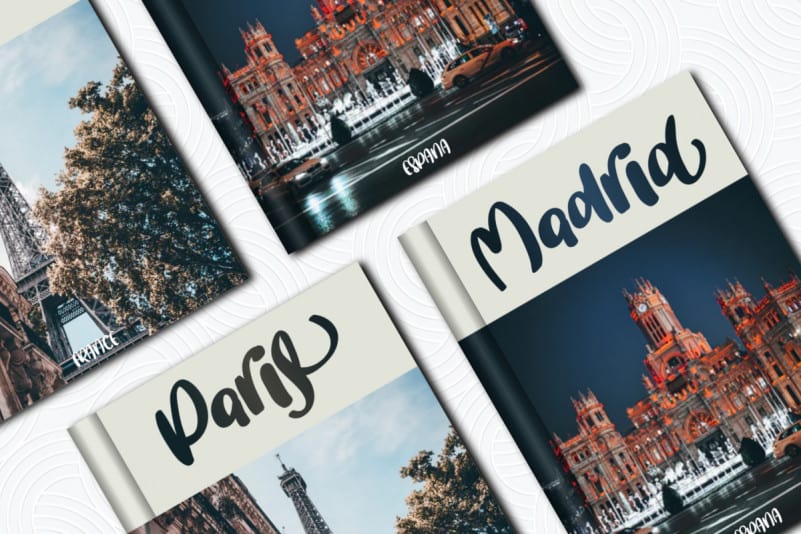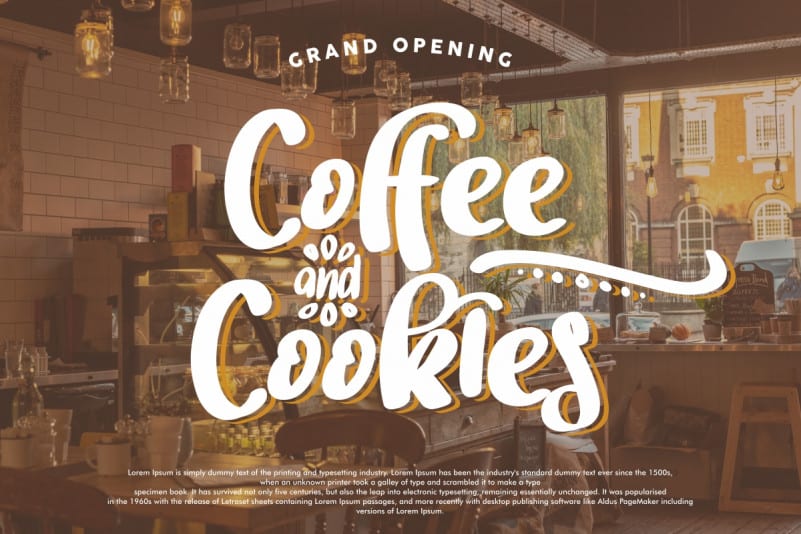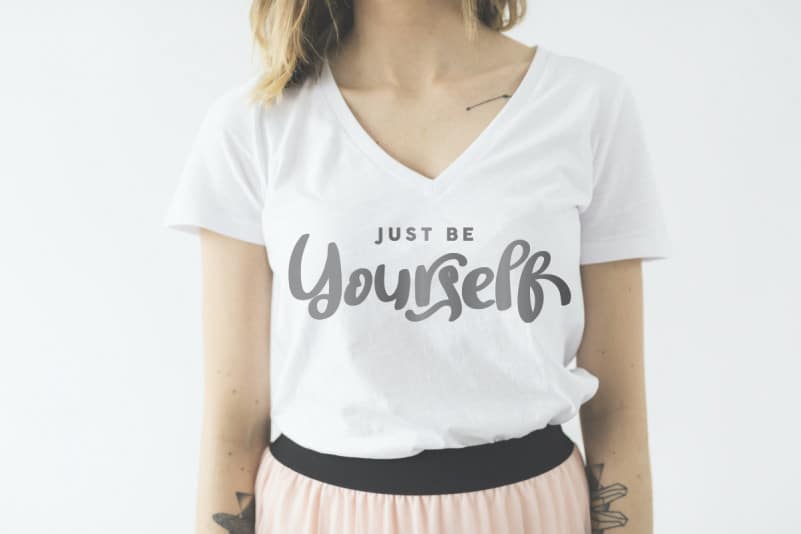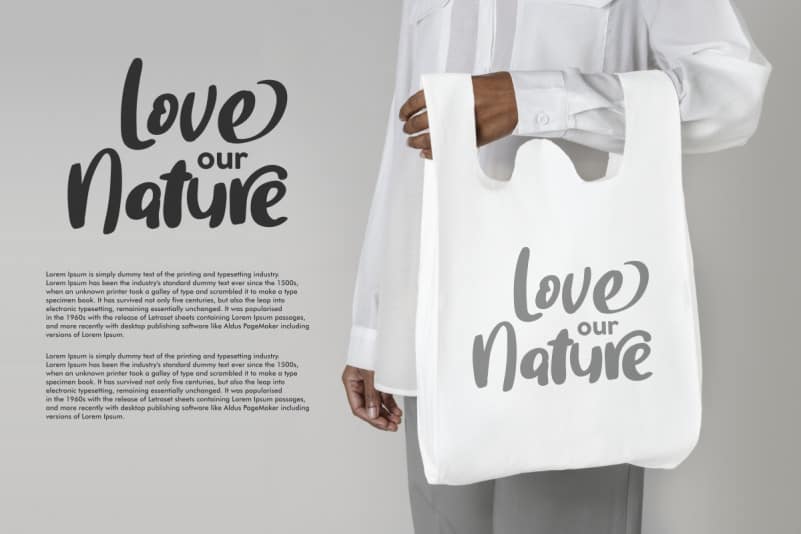
BrotherGlow Brush Font
BrotherGlow Brush Font is a stunning brush font originally from NoahType. It will add an authentic twist to any design project. This font is crafted carefully in every its single scratch, created to look as close to a natural handwritten script so that it can create the perfect combination on each glyph. When we make this font, we really want to create a touch that is so free-flowing that it gives a natural impression on its use later. For example, if you want letter ‘s’ that has a flow sketch with letter ‘t’, you can find it in ‘st’ ligature glyph (just type in the text form below for trying). This awesome script is for anyone who are needing of elegance and stylish for their designs.
BrotherGlow Brush Font includes full set of Uppercase and Lowercase Basic Characters, Numerals and Punctuation. Also it contains ligatures and a lot of stylistic alternates characters to perfectly make natural calligraphy look that add more beautiful and aesthetic fonts to perfect your extraordinary project. BrotherGlow will be awesome for logotype, invitation, cards, flyer, headline, promotion, social media posts etc